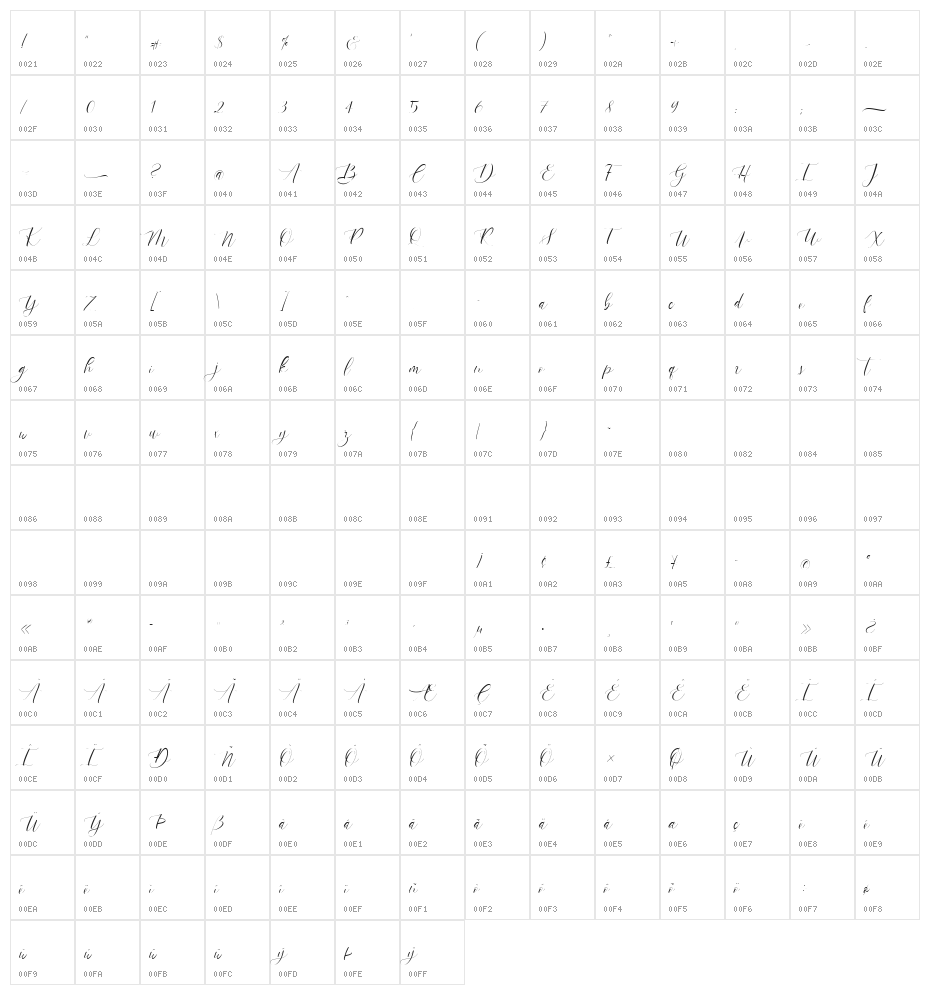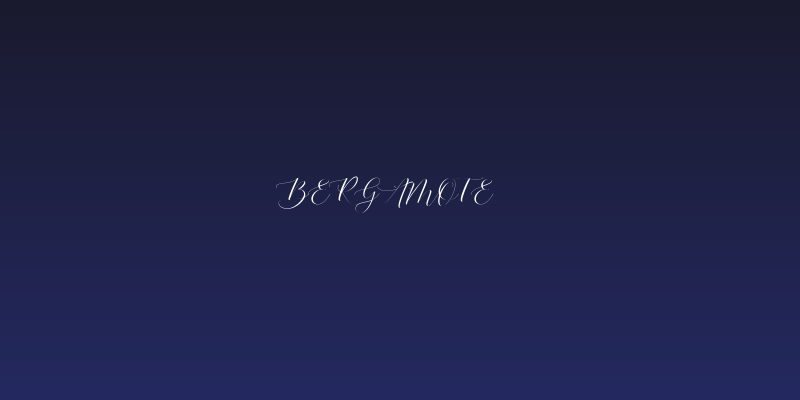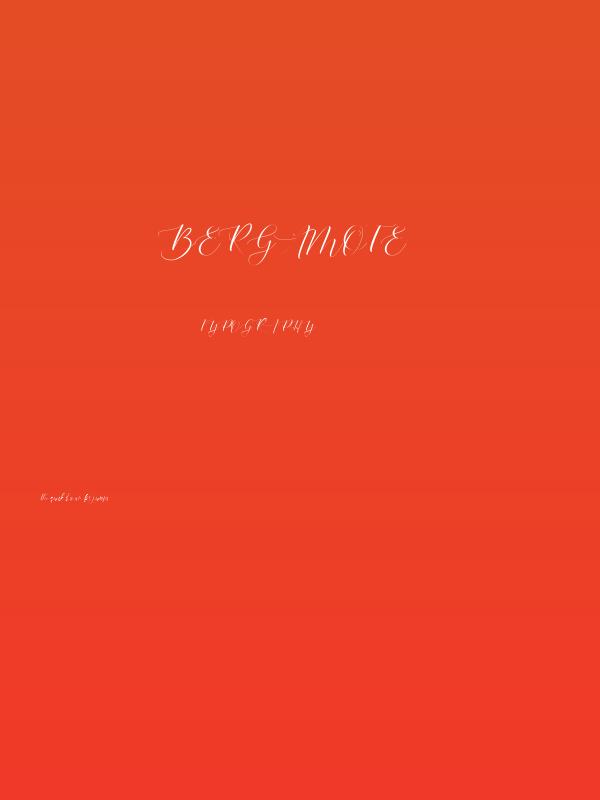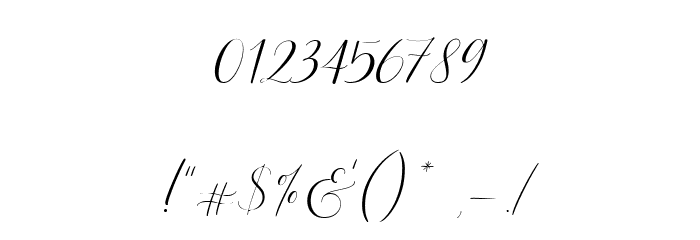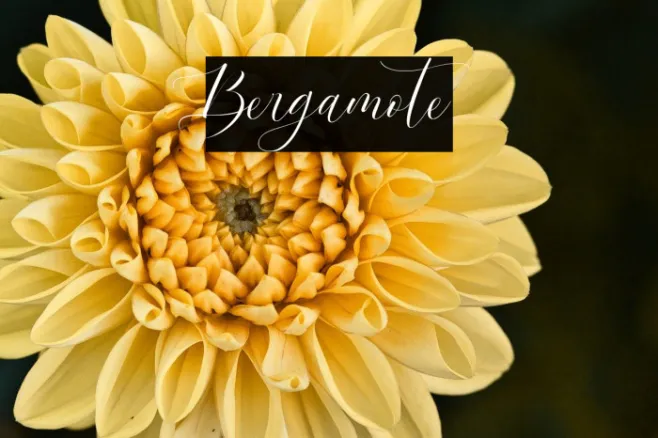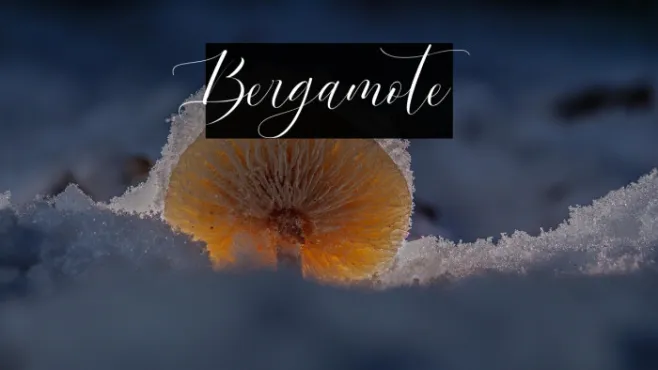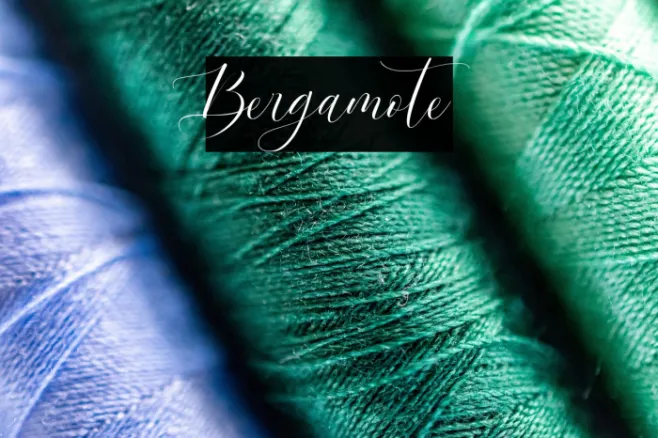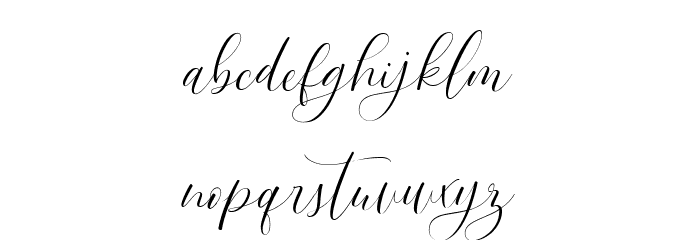
Bergamote Font
Bergamote Description
This elegant script font features flowing, interconnected letters with a sophisticated flair. The strokes are delicate and graceful, with a high contrast between thick and thin lines, giving it a refined and luxurious appearance. The uppercase letters are ornate and decorative, while the lowercase letters maintain a fluid and cohesive style. The numerals and special characters are designed to complement the overall aesthetic, making it suitable for formal and decorative purposes. The font's intricate details and stylish curves make it ideal for projects that require a touch of elegance and class.
| Proposed Projects | Wedding invitations, luxury branding, elegant stationery, and high-end product packaging. |